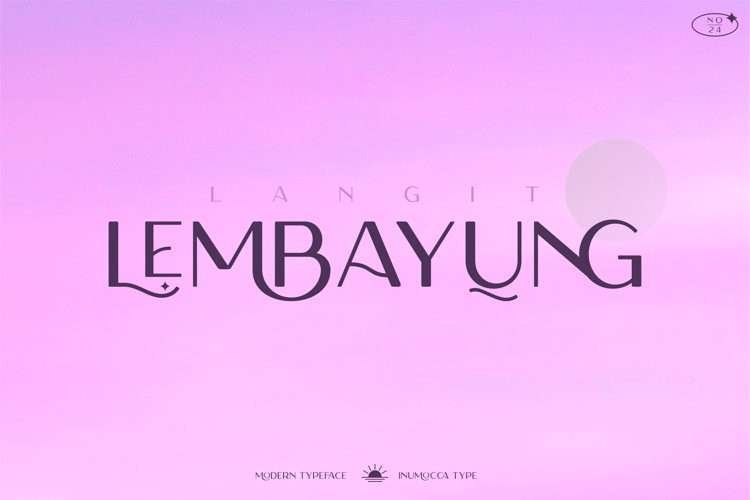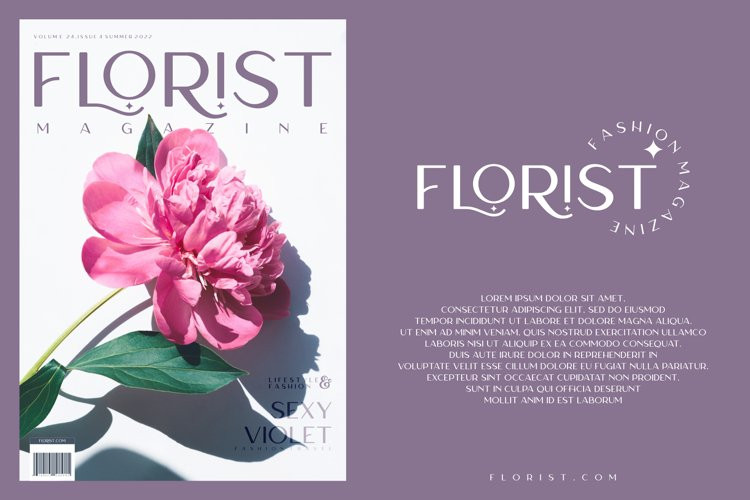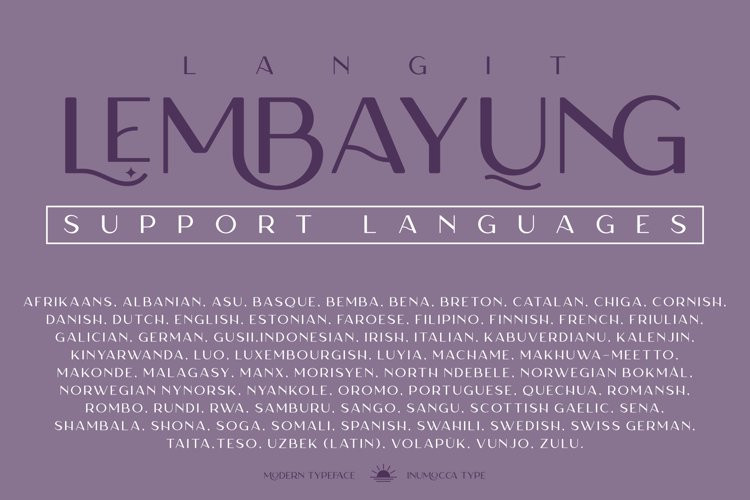
Langit Lembayung Font
Langit Lembayung FontLangit lembayung is an Elegant Sans Serif typeface , Classy and Modern Atmosphere
Awesome More Beautiful Ligature and unique Stylistic Alternates.
Really playful typeface to covering your Project,
like Lettering, Website Interface, Magazine, Branding, Poster, wedding invitations,
Quotes Lettering, Logos, and more your project design.